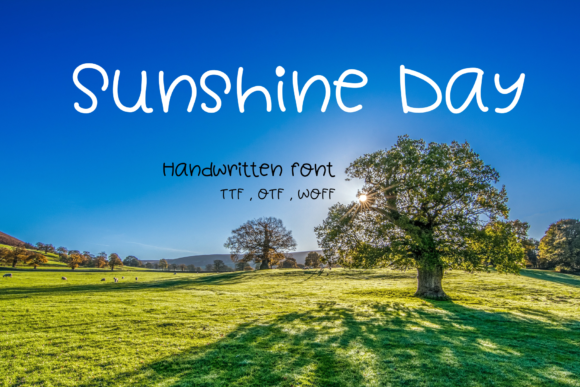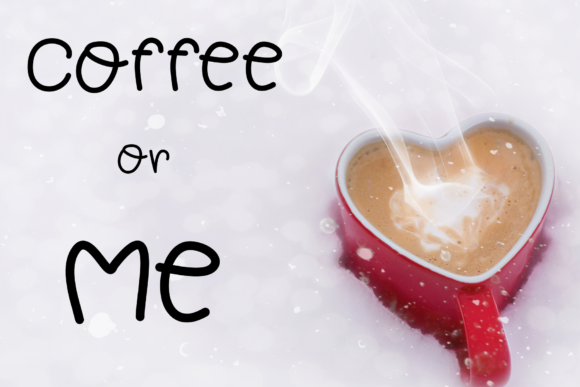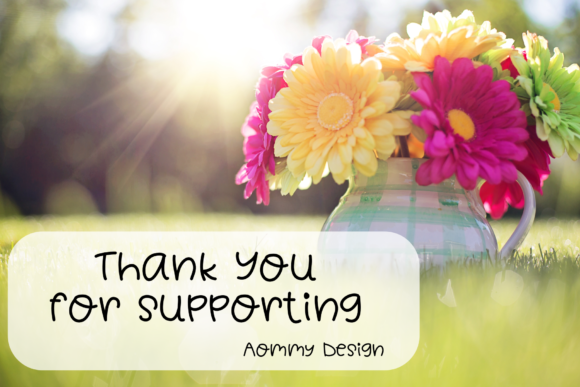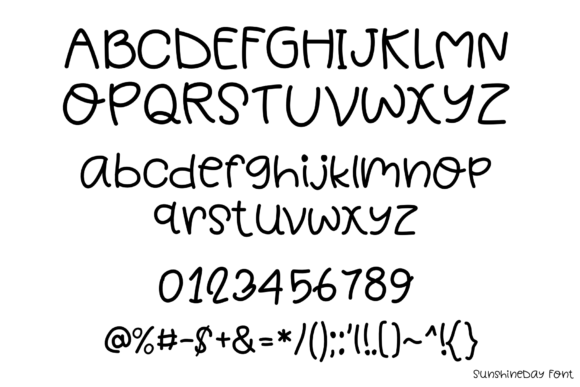
Sunshine Day Font
About Sunshine Day Font
Sunshine Day is a neat and friendly handwritten font. It has a clean, thin and smooth vibe and it will be a hit for any design that you want to add it to.